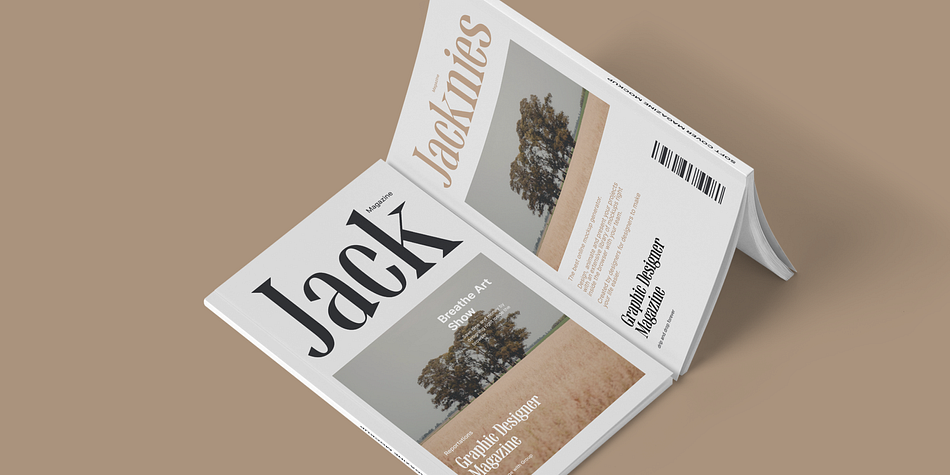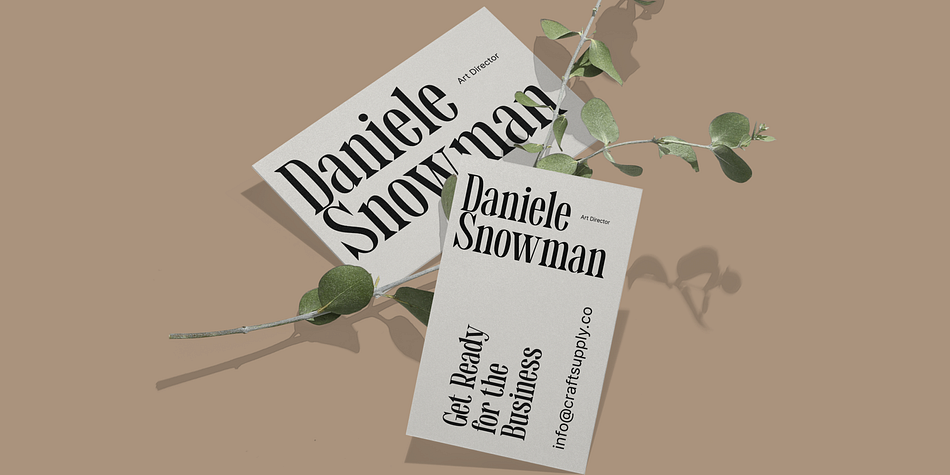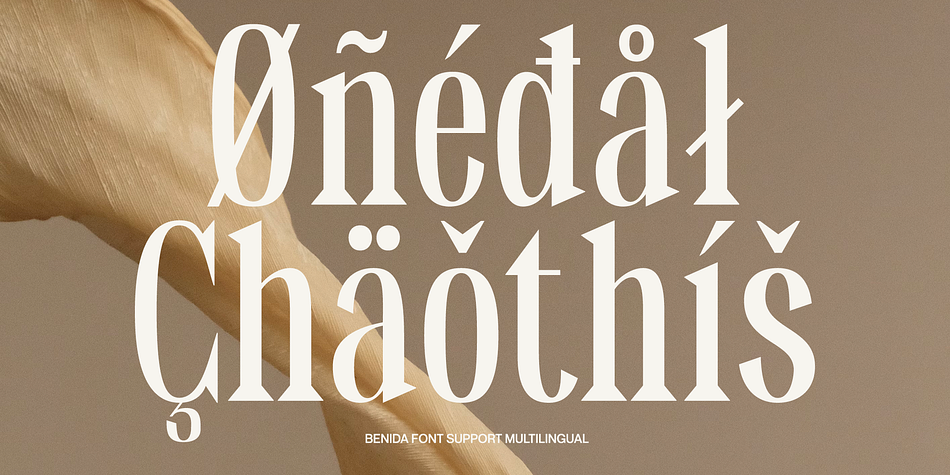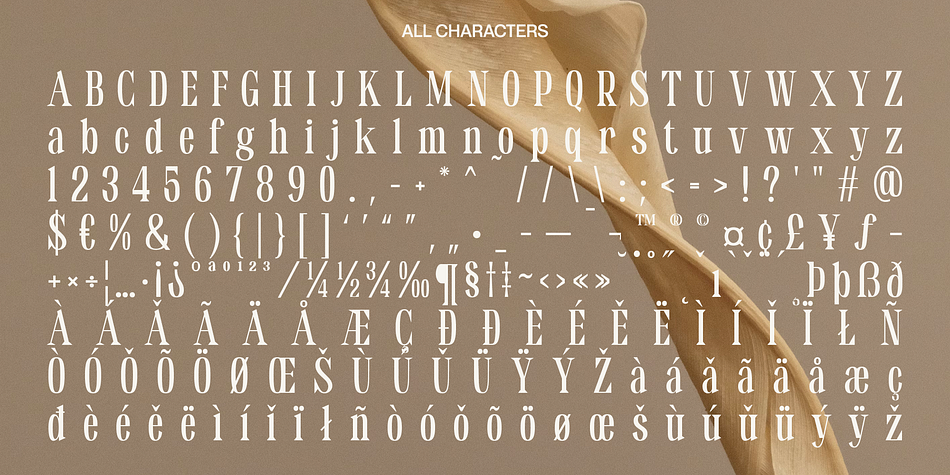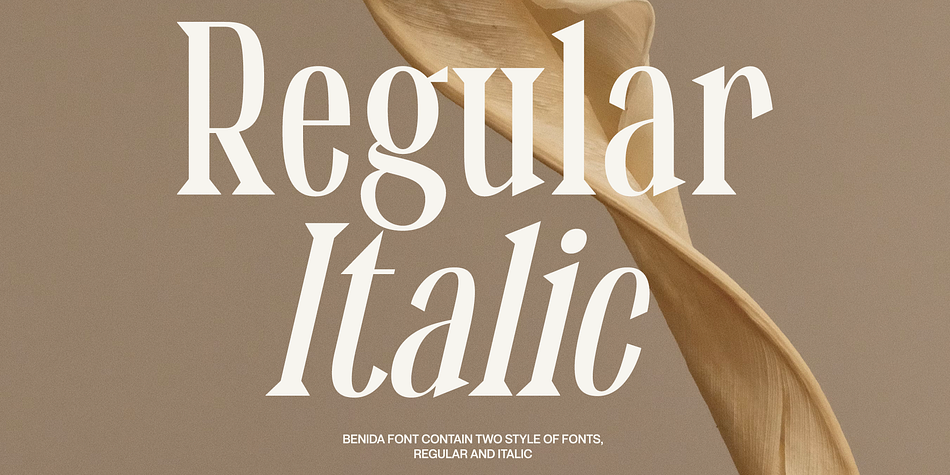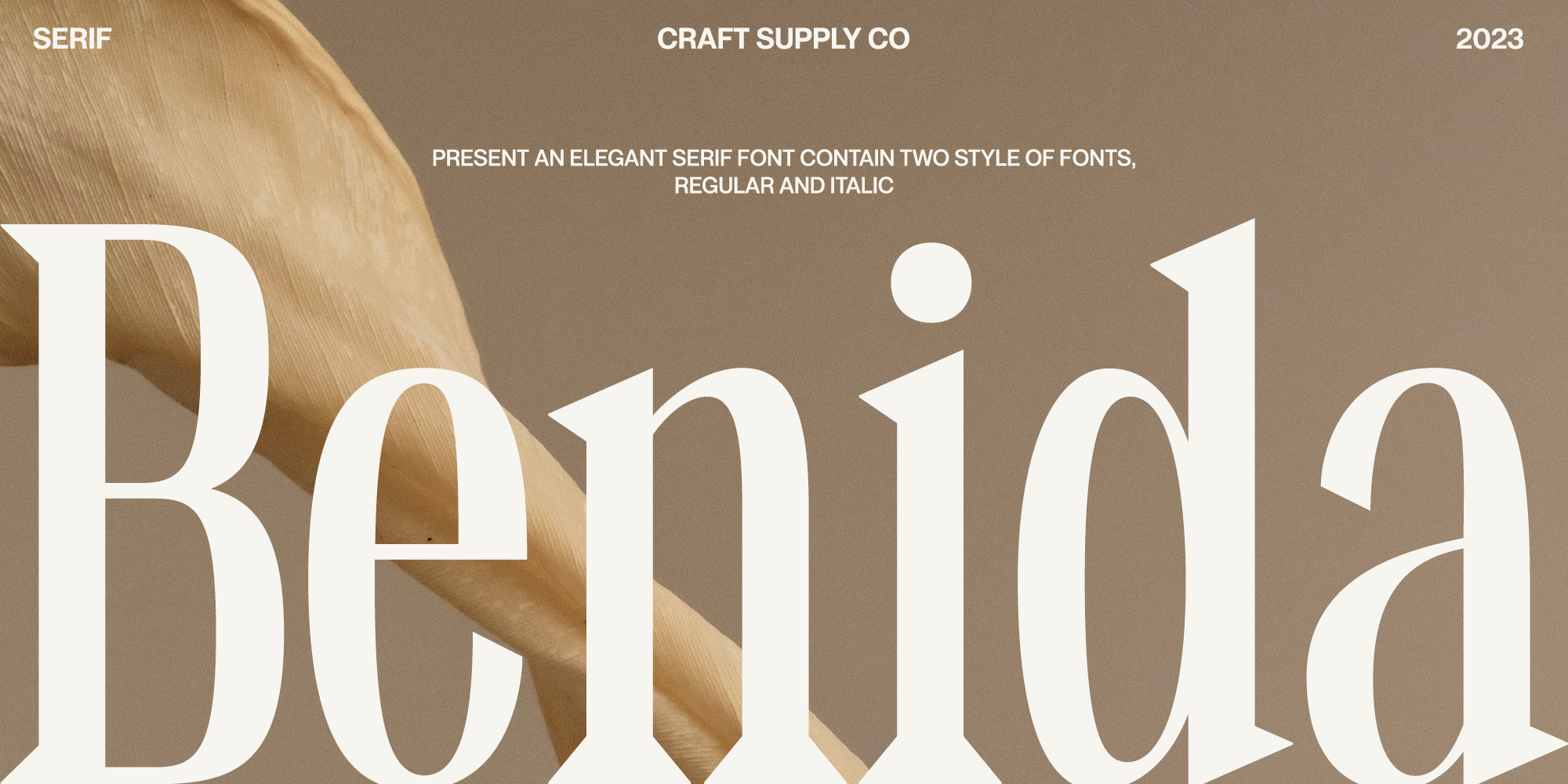
Benida
Benida is a serif font family. This typeface has two styles and was published by Craft Supply Co.
Introduction to Benida Serif Font
Benida, an elegant serif font, offers a high-contrast serif design. Its unique style is perfect for various applications. The font’s design is both bold and refined, making it versatile. Ideal for those seeking a mix of elegance and assertiveness, Benida is a great choice.
Design Features
Benida features high-contrast serifs, adding sophistication to its look. The wedges in the serif are carefully crafted. These elements combine to create a distinct, impactful appearance. The font’s structure balances strength with grace, making it stand out. This balance ensures that Benida is suitable for both formal and creative uses.
Usability and Applications
Benida’s design makes it highly readable. It’s perfect for headings, logos, and editorial work. The font’s elegant nature suits wedding invitations and upscale branding. Its assertive qualities make it ideal for professional presentations. Benida truly shines in both digital and print formats, demonstrating versatility.
Accessibility and Appeal
Benida Serif Font is designed to be user-friendly. It caters to a wide range of readers, avoiding complex vocabulary. The font’s clarity enhances its appeal across various demographics. This accessibility makes Benida a popular choice among designers. It’s a font that speaks to elegance and strength, appealing to a diverse audience.